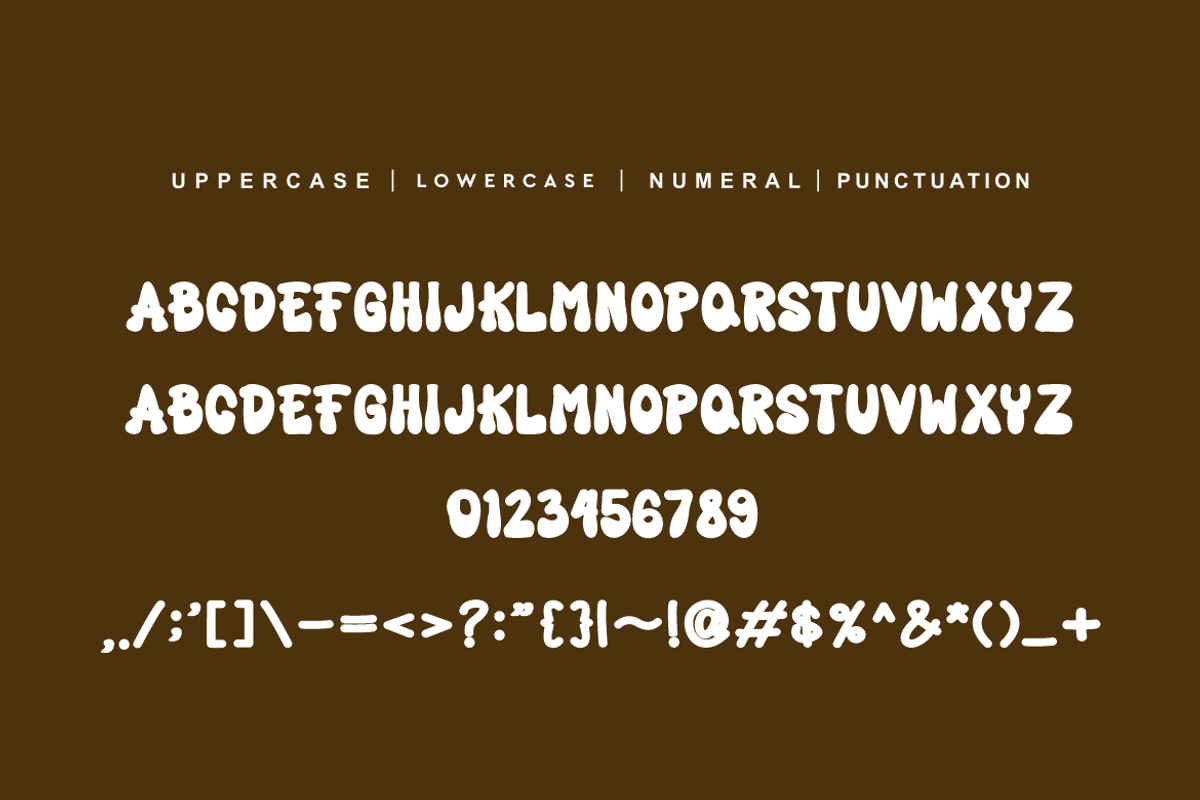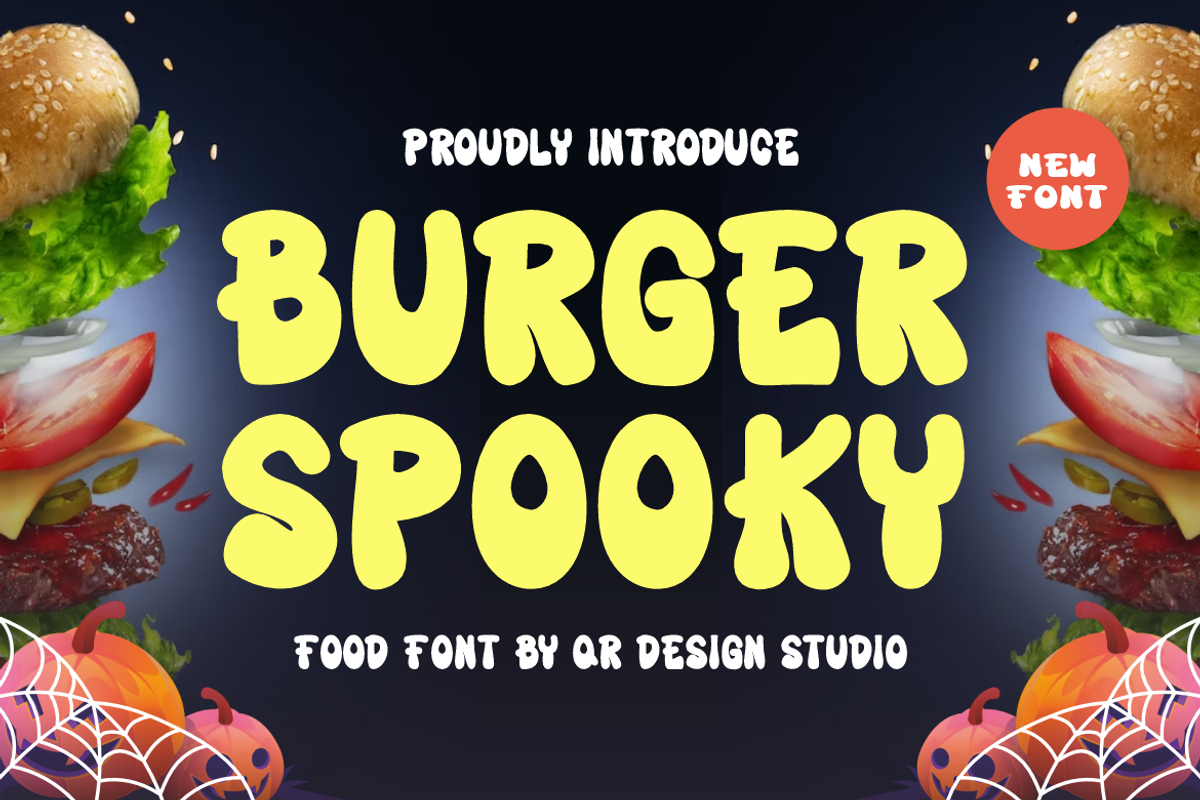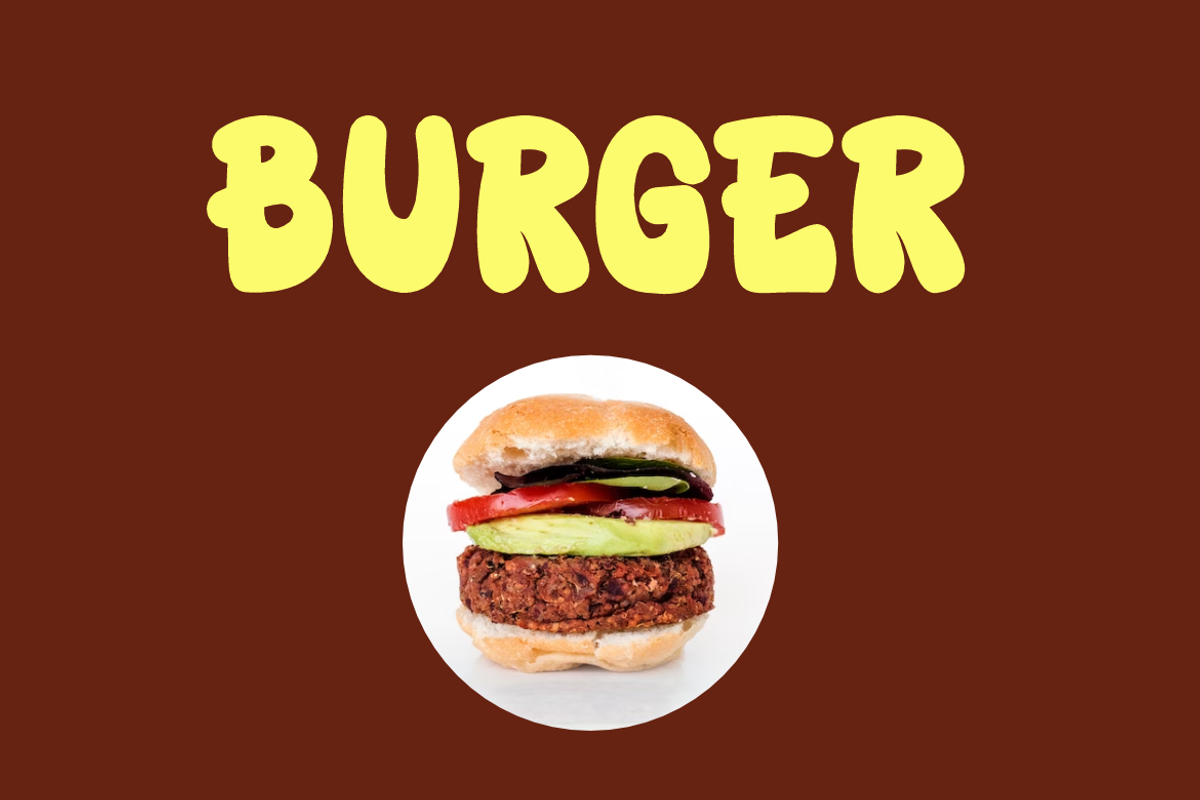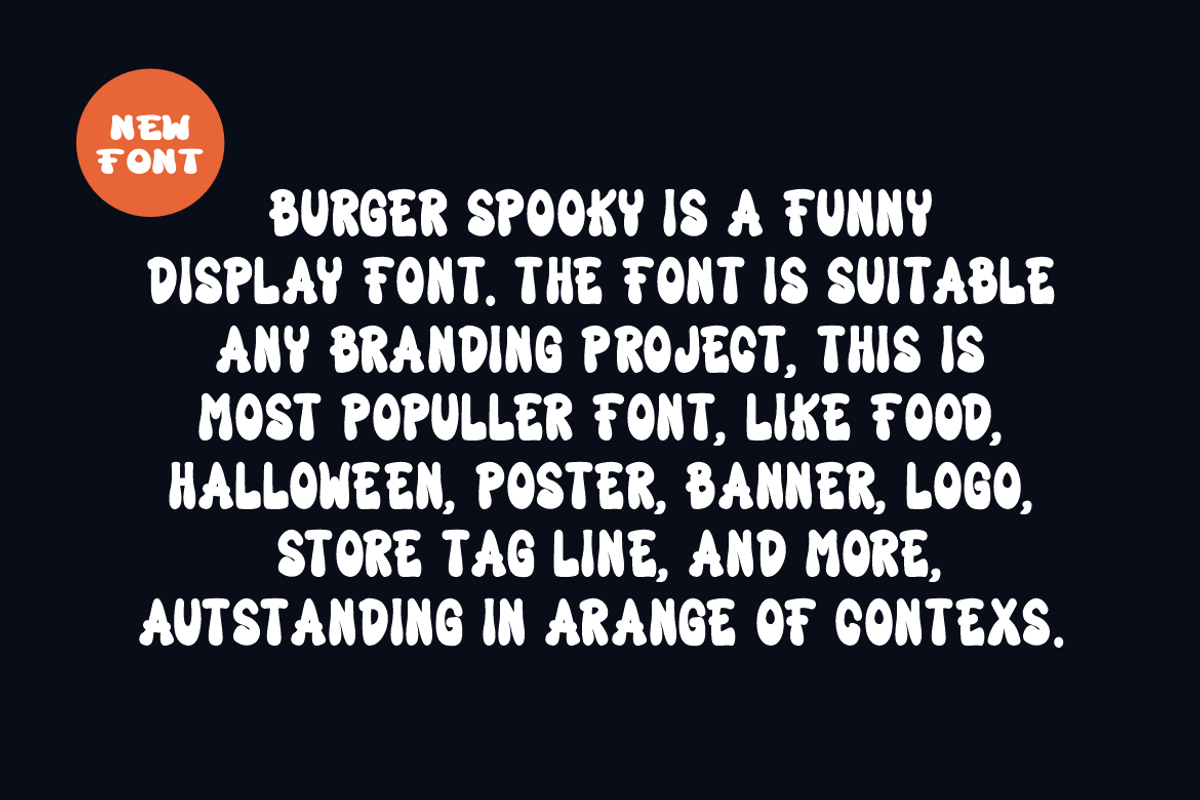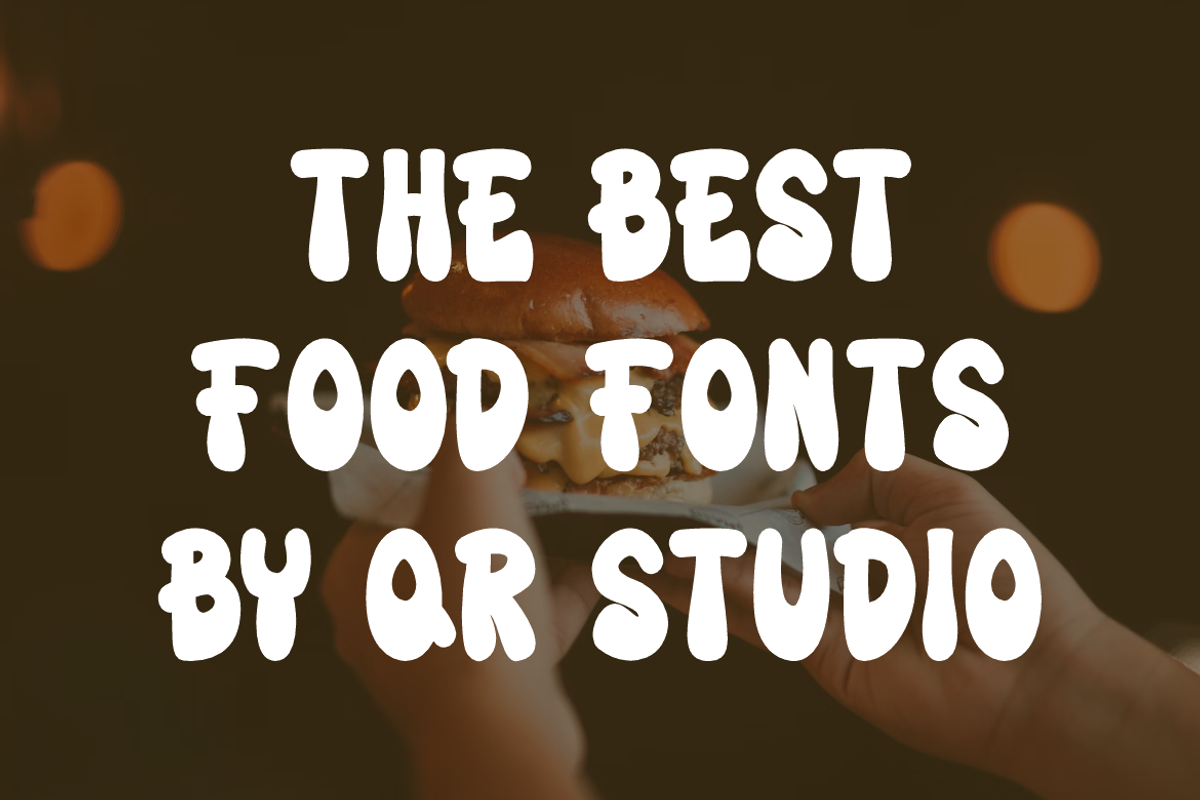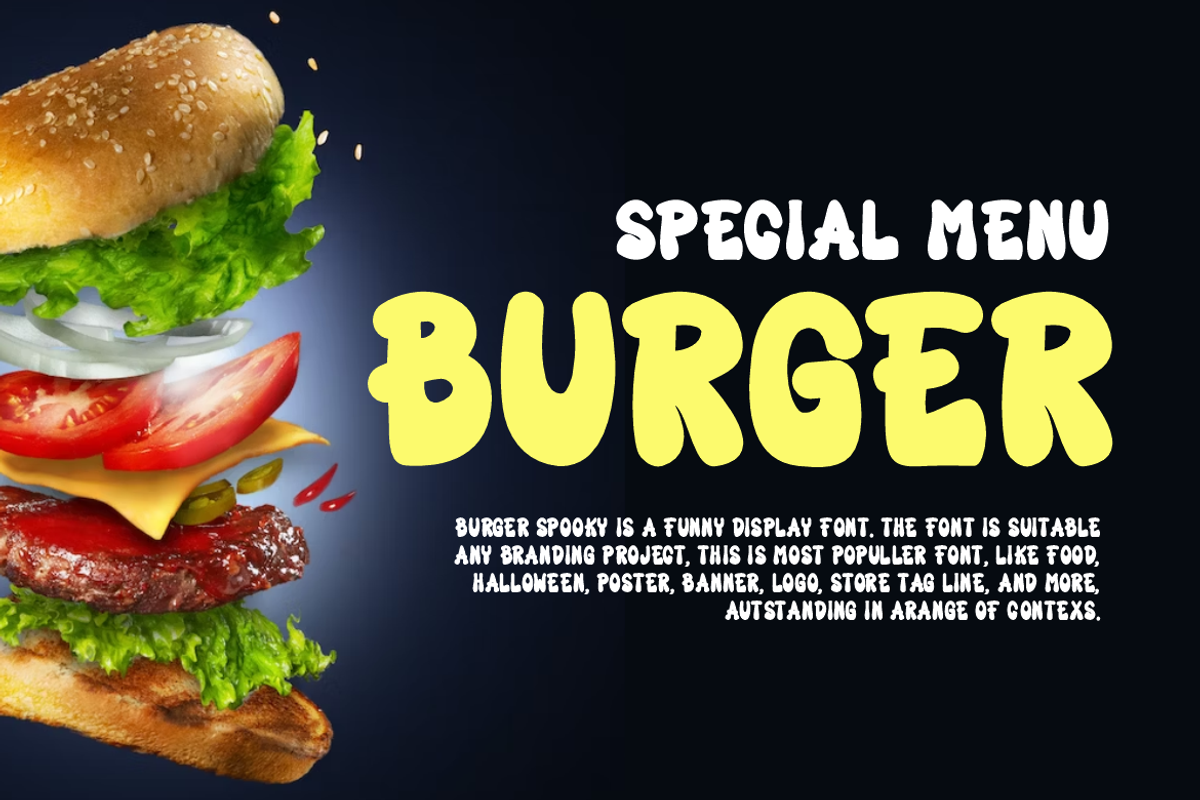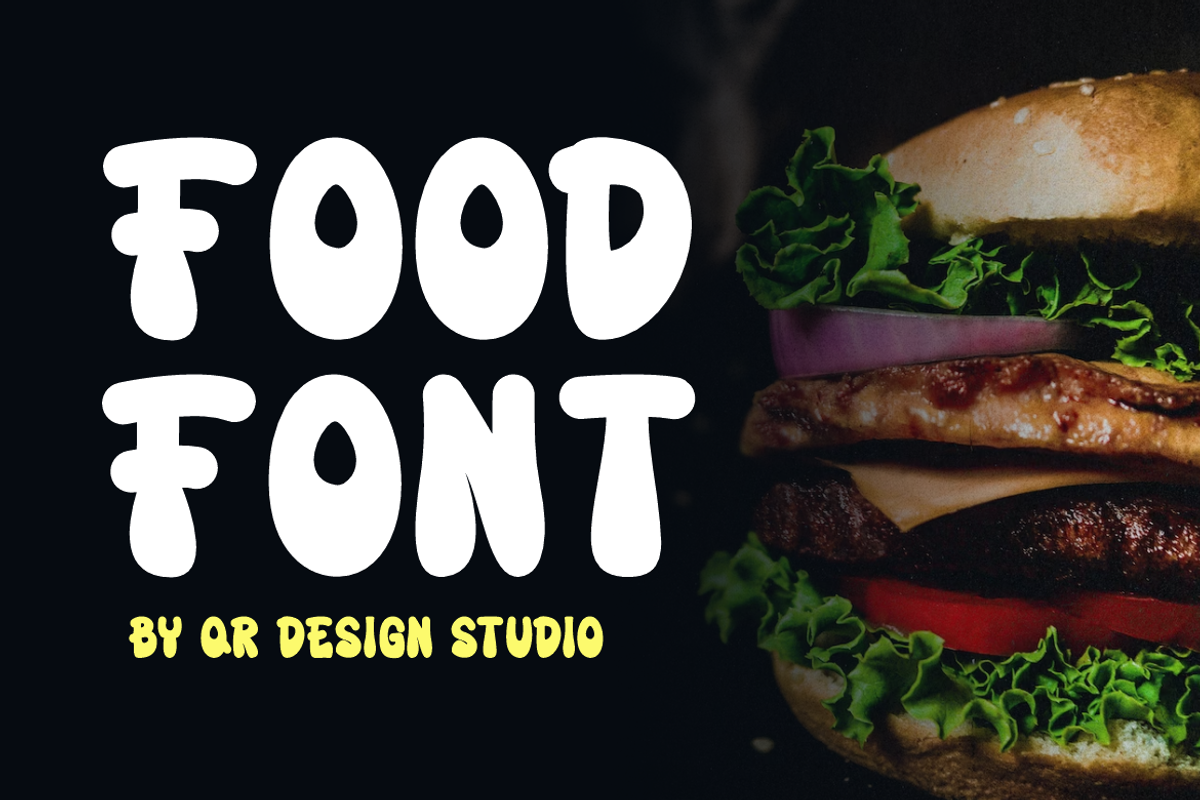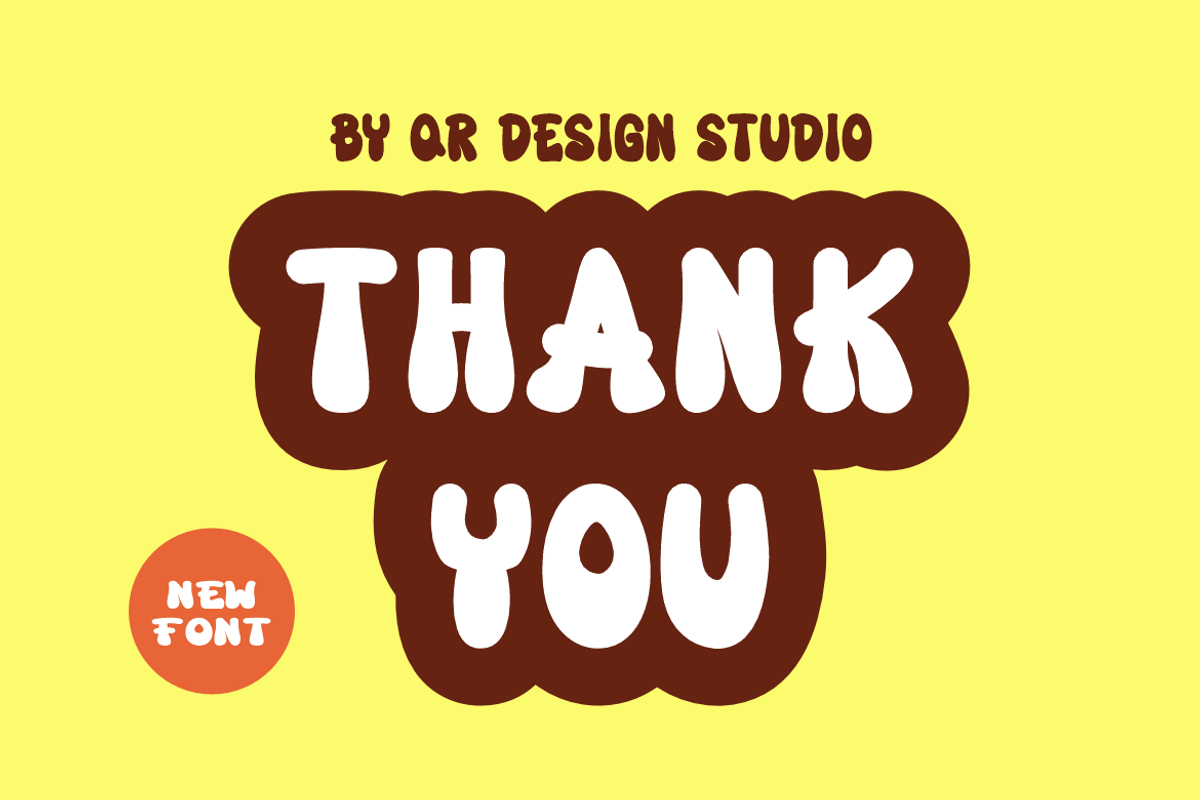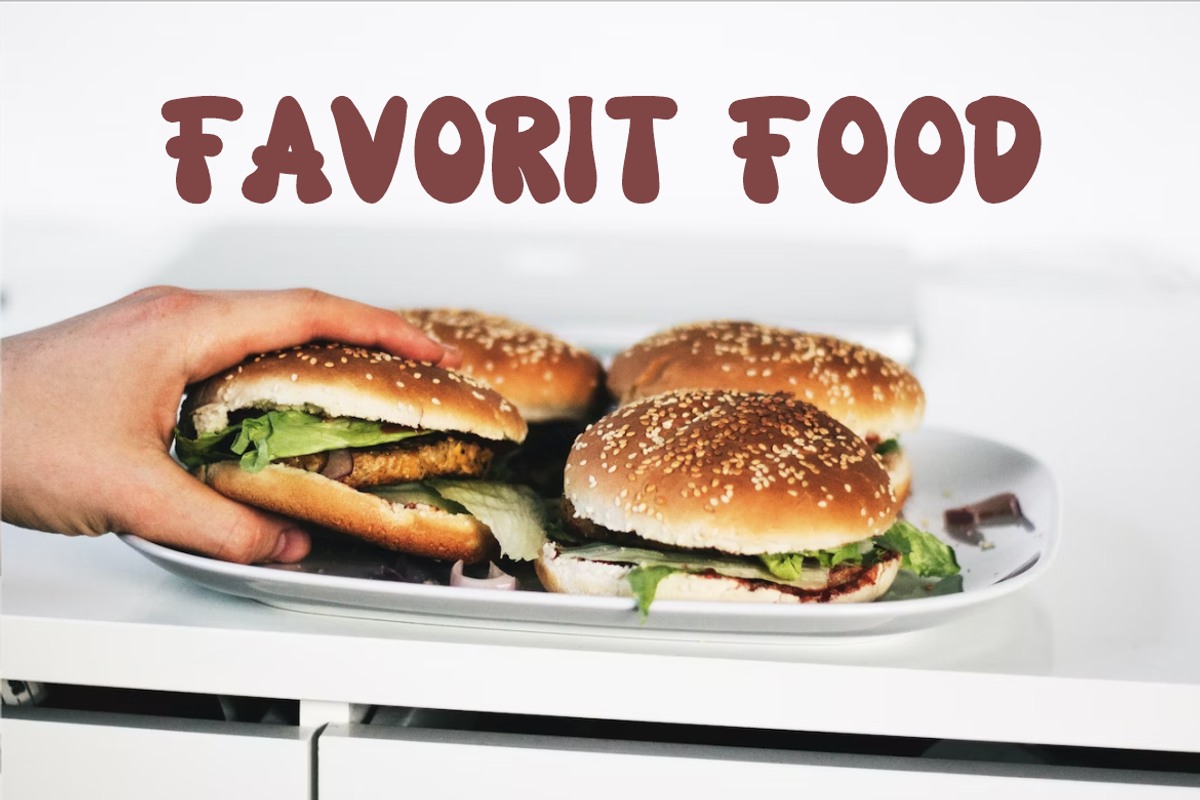
Burger Spooky - Food Font
Burger Spooky - Food Font is a bold and authentic display font. The font is suitable for any branding project like logo, t-shirt printing, food, and many more. Outstanding in a wide range of contexts.